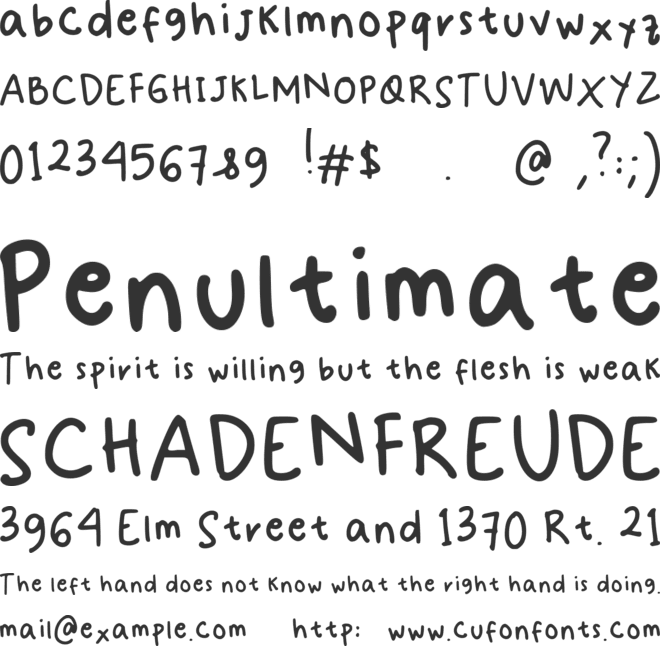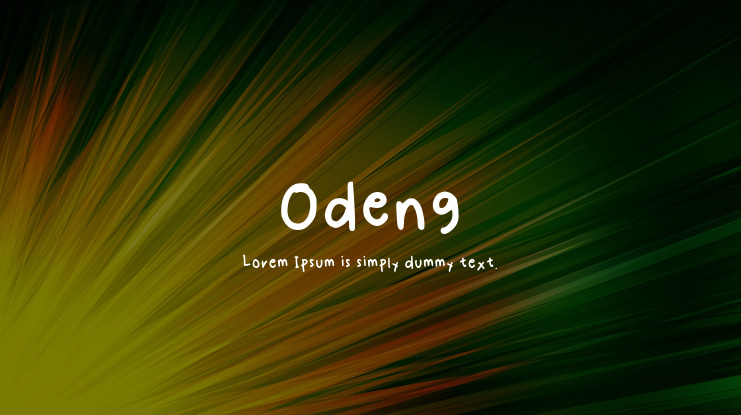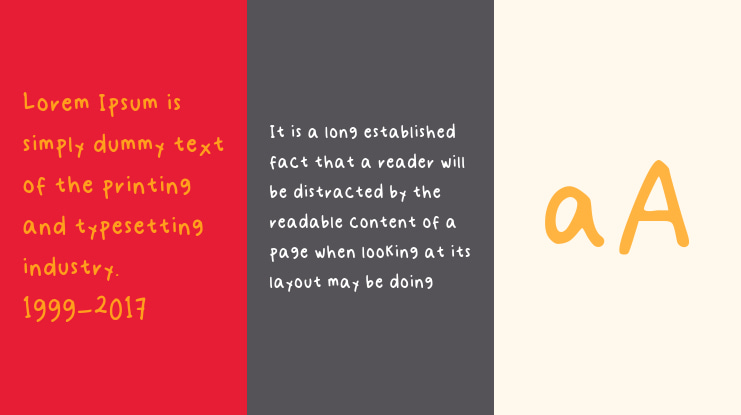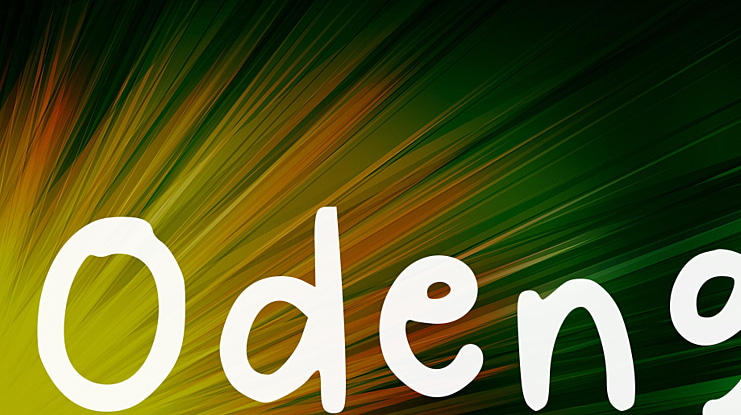
Odeng Font
Feel free to use for personal use! I made this font with my own handwriting so when I want to take some notes the font will be just like my handwriting.